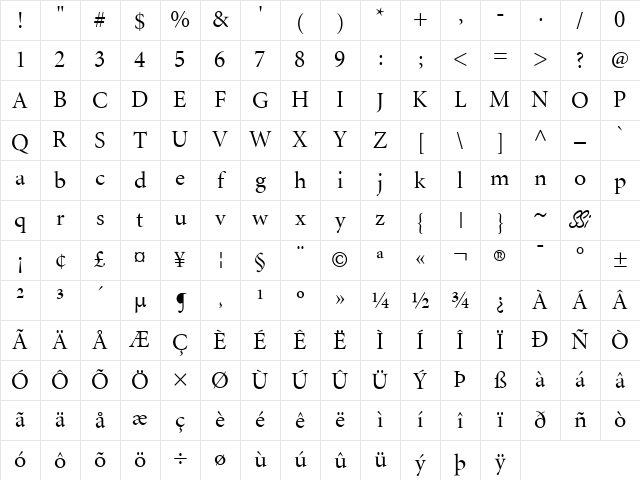
Atlantix Display SSi Display Regular
Style: Display Regular
Complete Atlantix Display SSi Display Regular glyph index. Displaying only characters natively supported by Atlantix Display SSi Display Regular font.
Design Context for Atlantix Display SSi
Atlantix Display SSi is built around its visual character rather than neutral utility - its distinctive forms are designed to make an impression at display sizes.
Font Pairing: Pair with a clean neutral sans-serif for body copy to let Atlantix Display SSi's character lead without overwhelming the composition.
Pro Tip: Use Atlantix Display SSi exclusively at display sizes - it was designed to be seen, not read at length. Let a neutral companion handle body copy.